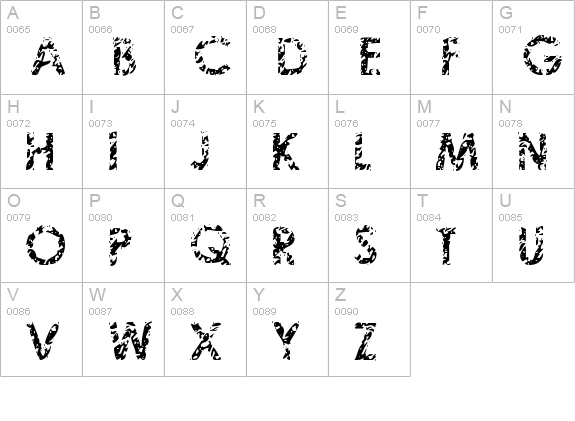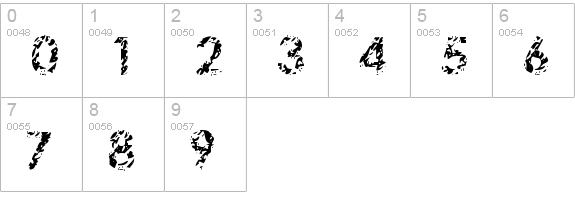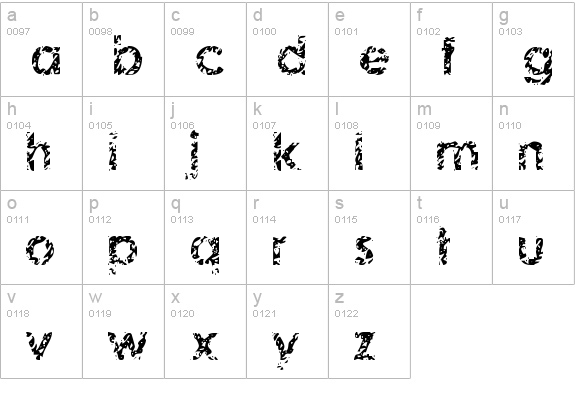
Whatsup Witchoo? Font Details
Introducing the remarkable Whatsup Witchoo? font, a captivating typeface that exudes an air of casual coolness and modernity. With its stylishly uneven strokes and playful curves, this font effortlessly conveys a sense of liveliness and approachability. Whatsup Witchoo? font is the perfect choice for projects that require a touch of informality and a dash of whimsy. Whether you're designing a trendy logo, creating eye-catching social media graphics, or crafting unique invitations, this font will add a touch of personality and charm to your work. But what truly sets Whatsup Witchoo? font apart is that it is free. That's right, you can freely download this exceptional font at FontsMarket.com. We believe that creativity should never be limited by financial constraints, and that's why we've made Whatsup Witchoo? font accessible to everyone. Now, you can enhance your designs without breaking the bank. With Whatsup Witchoo? font, the possibilities are endless. Let your imagination run wild as you experiment with its various weights, styles, and decorative elements. Create stunning headlines, captivating quotes, or even entire typographic compositions that will leave a lasting impression on your audience. So, don't miss out on this incredible opportunity to elevate your design projects with Whatsup Witchoo? font. Download it for free at FontsMarket.com and unlock a world of creativity at your fingertips. Let your designs speak volumes with the unique charm and effortless style of Whatsup Witchoo? font.